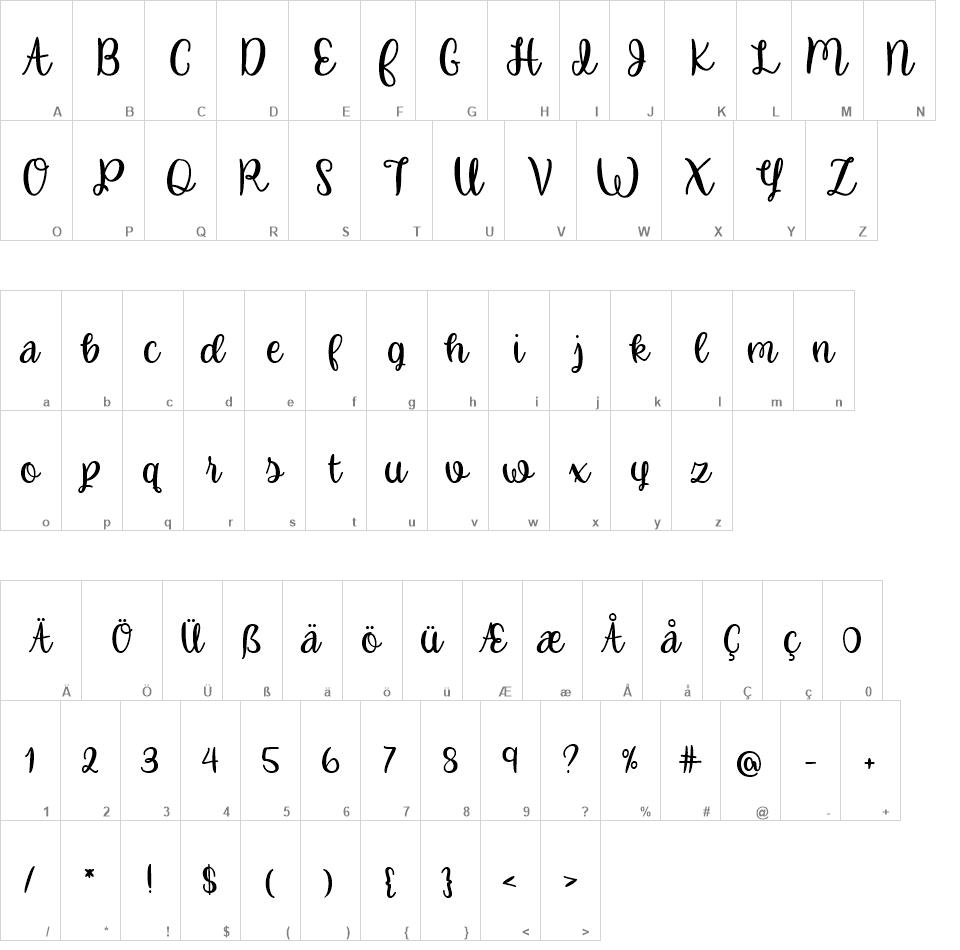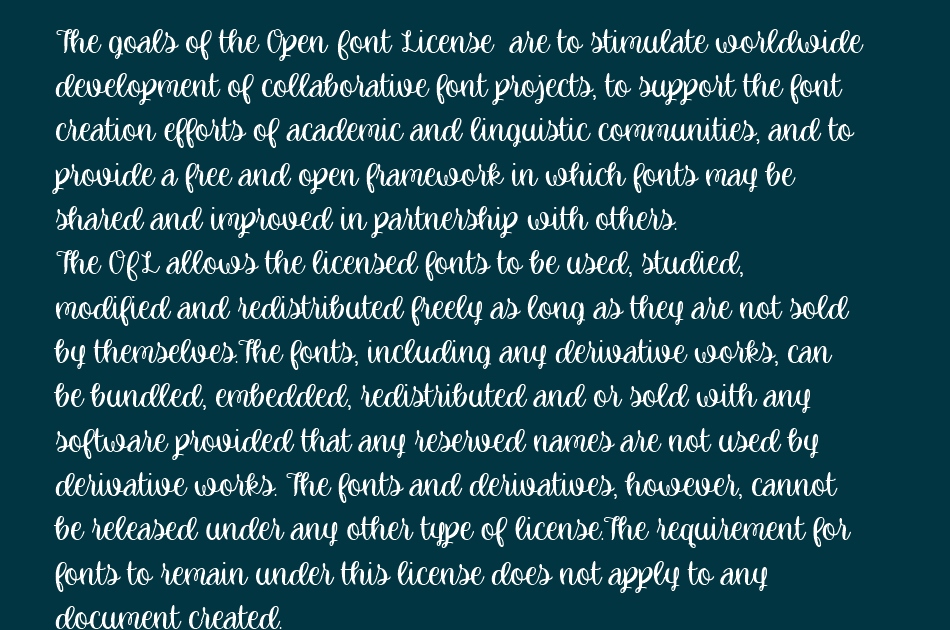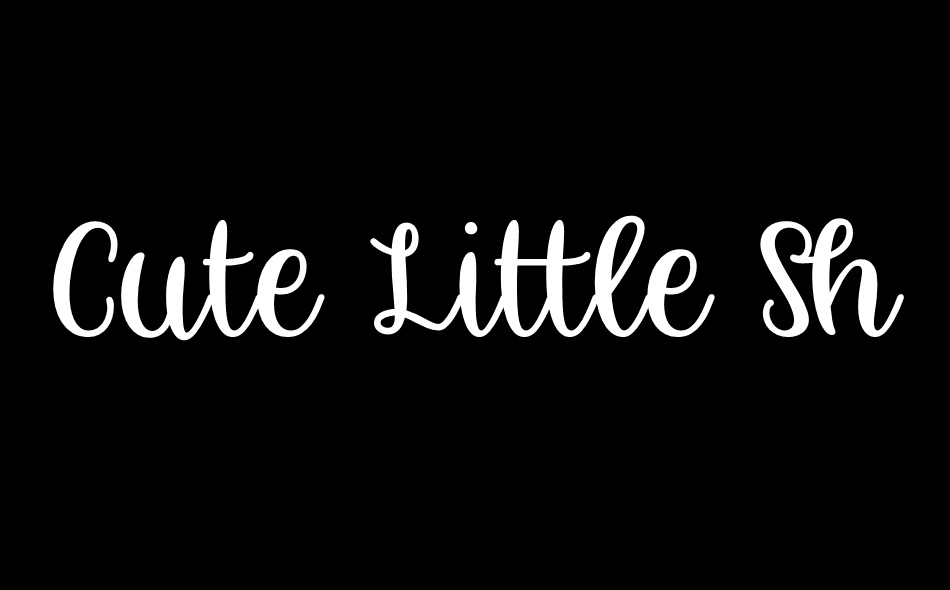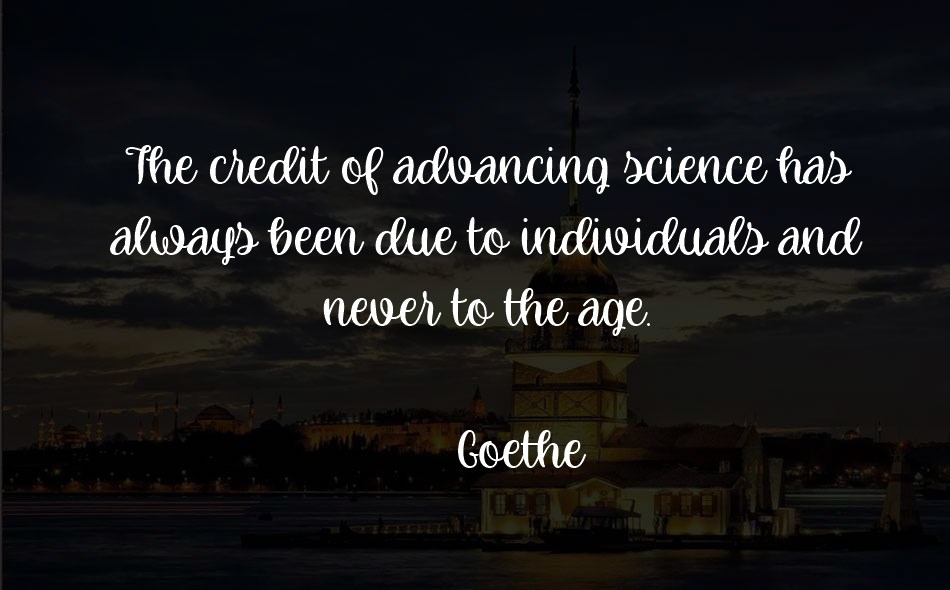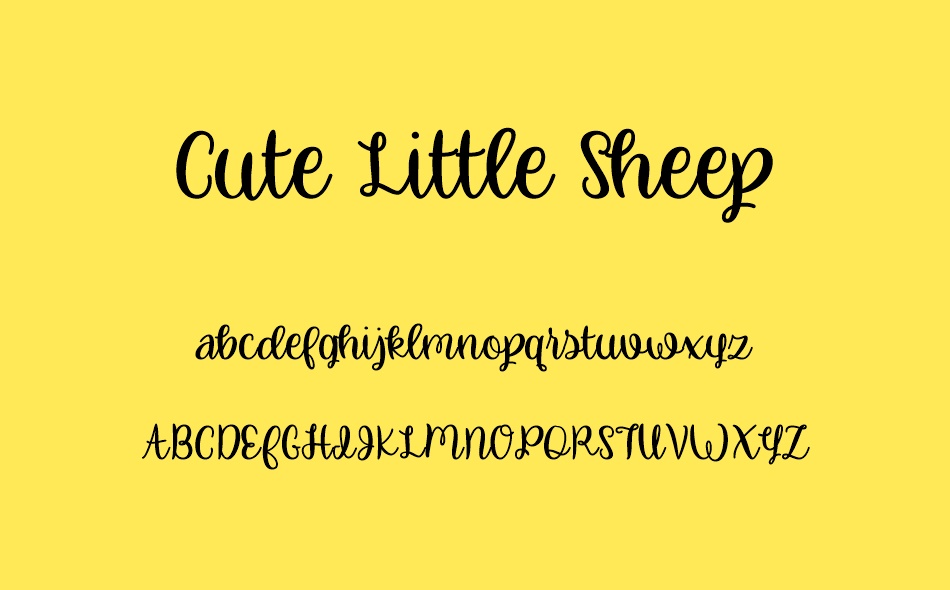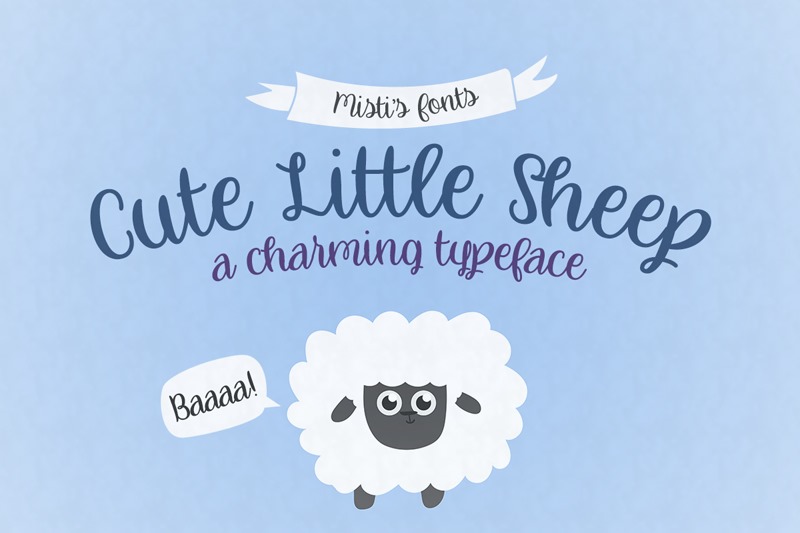
Cute Little Sheep font
Cute Little Sheep is a charming and cursive script font. Its friendly feel makes this font incredibly versatile, fitting a wide range of contexts. Add it to your creative ideas and notice how it makes them stand out!